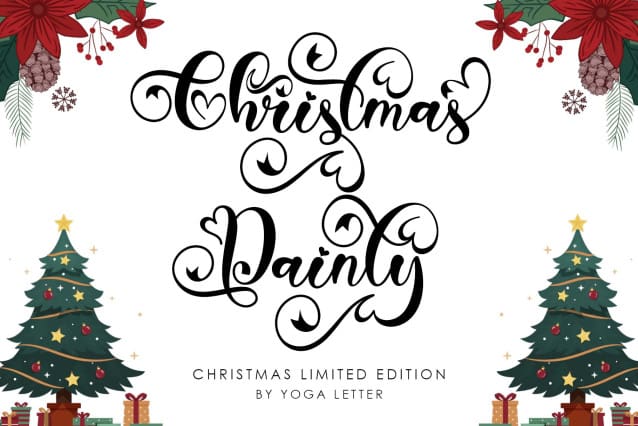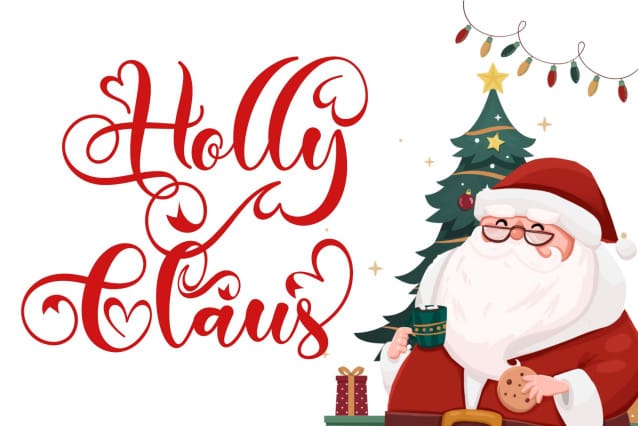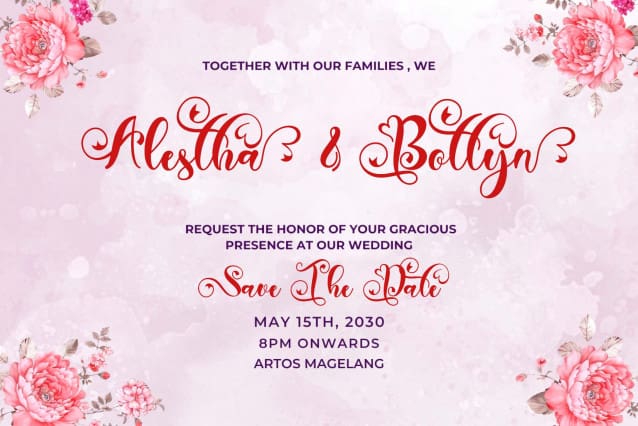
Christmas Dainty Font
Christmas Dainty Font is a beautiful handwritten font. It comes with capital letters, lowercase letters, ligatures, swashes, alternates, numbers, punctuation, and multilingual support. It is perfect for Christmas, Valentine’s, Fall, invitations, weddings, photography, business branding, logos, stickers, parties, and more.